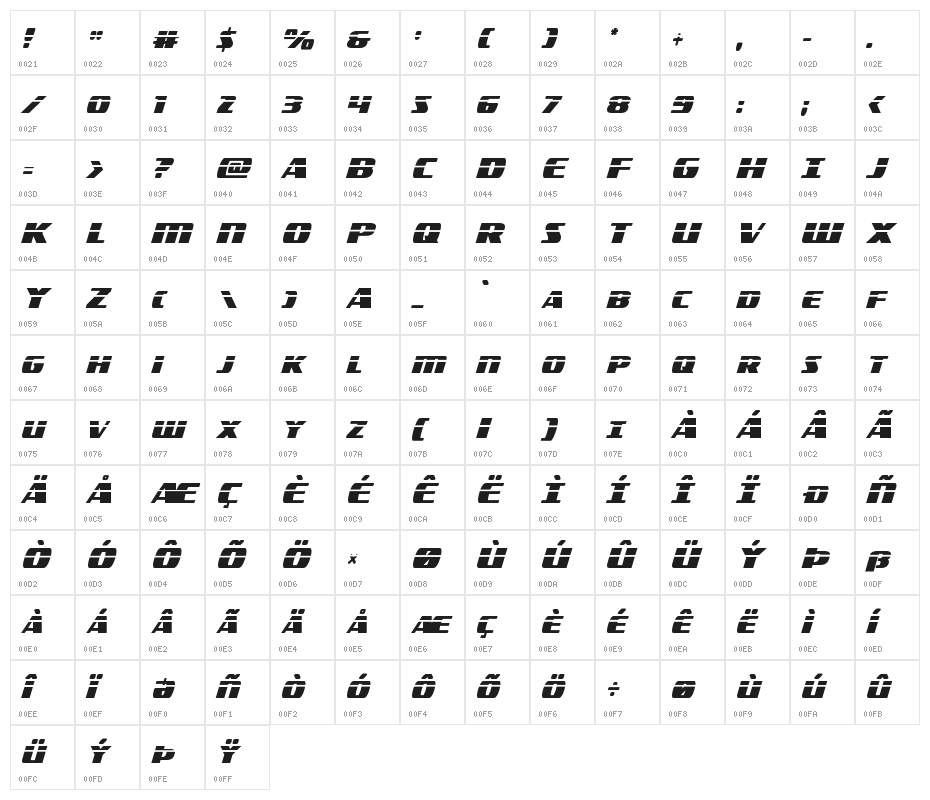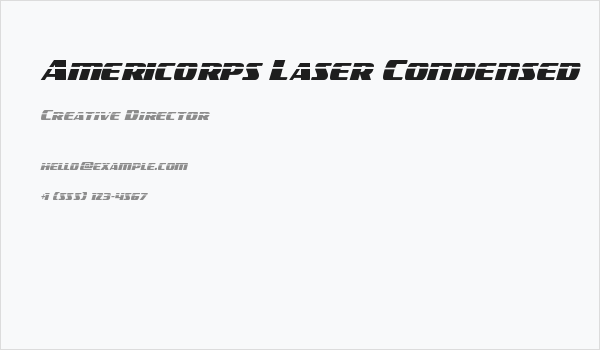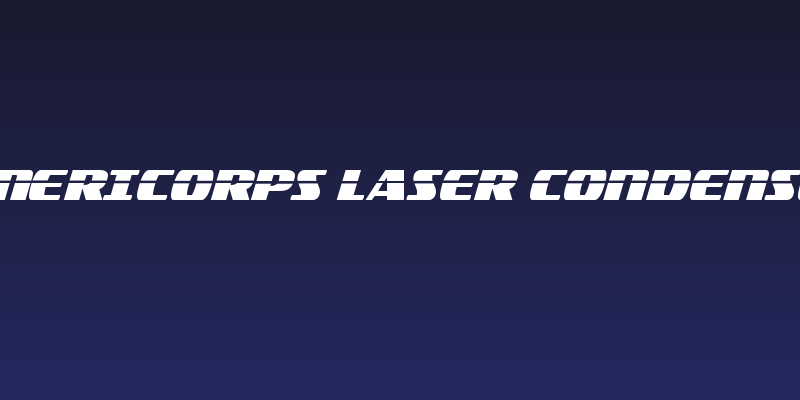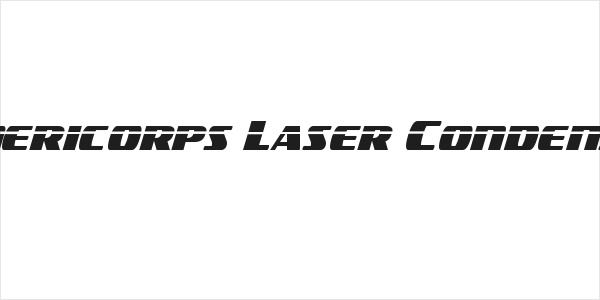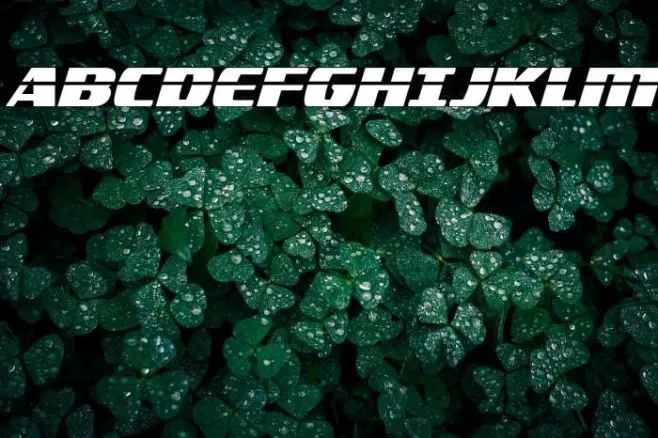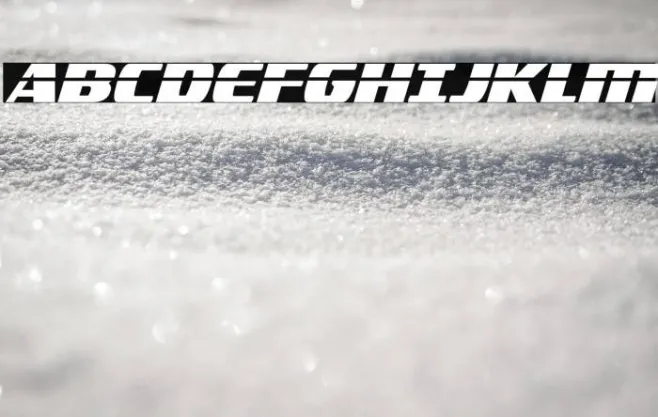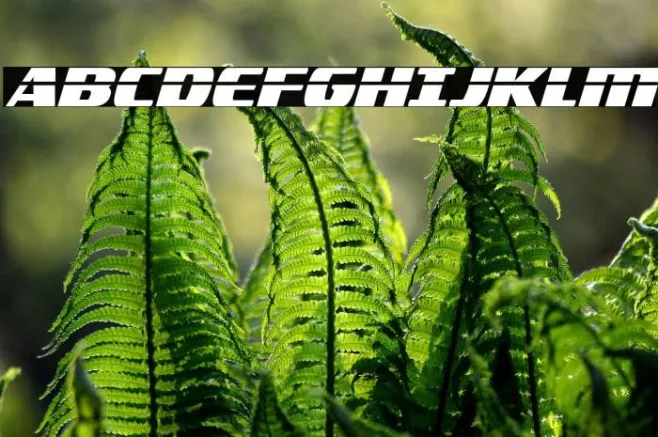
Americorps Laser Condensed Font
Americorps Laser Condensed Description
This font features a bold, futuristic design with a strong emphasis on geometric shapes and sharp angles. The characters are condensed, giving it a sleek and modern appearance. The uppercase letters are particularly striking, with a dynamic slant that suggests movement and speed. The numerals and special characters maintain this aesthetic, ensuring consistency across all glyphs. The font's unique style makes it stand out, with a high contrast between thick and thin strokes that adds to its visual impact.
| Use Case | Logos, Headlines |
| Proposed Projects | Ideal for technology branding, sports team logos, or sci-fi themed projects. |